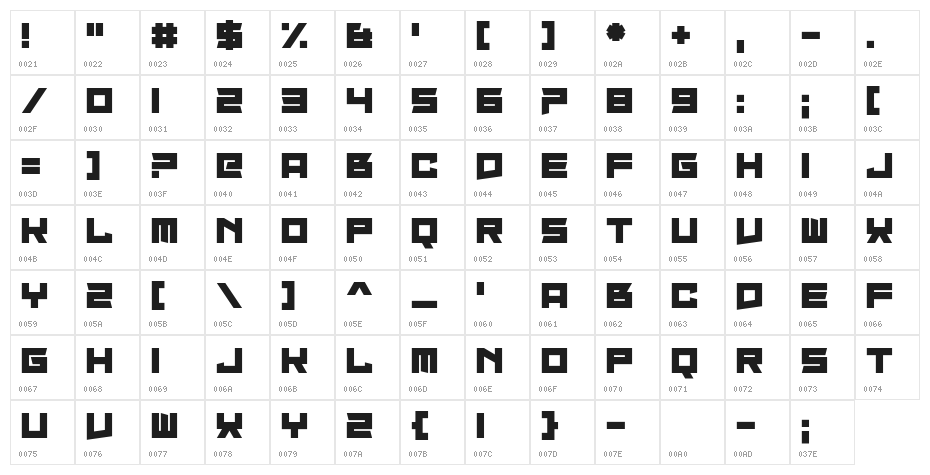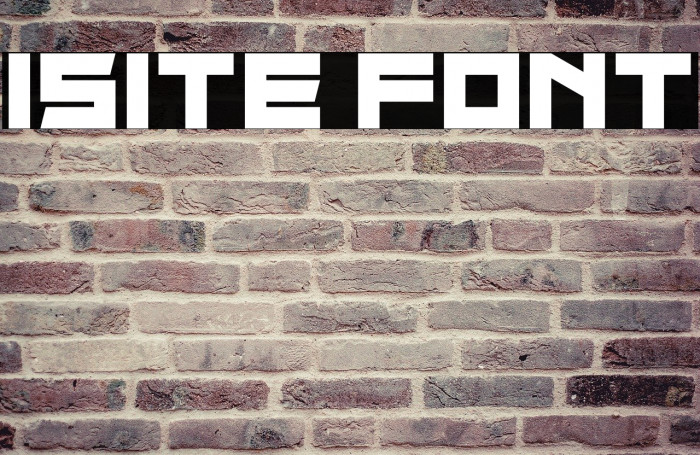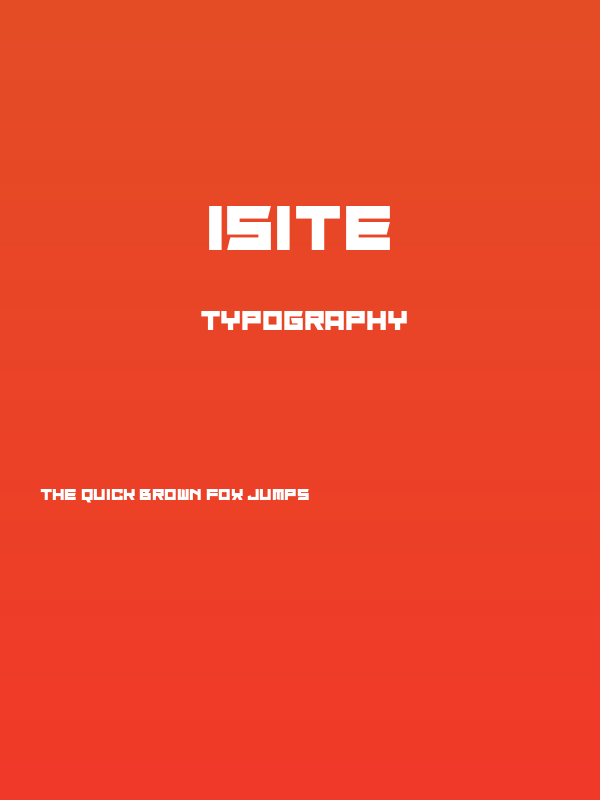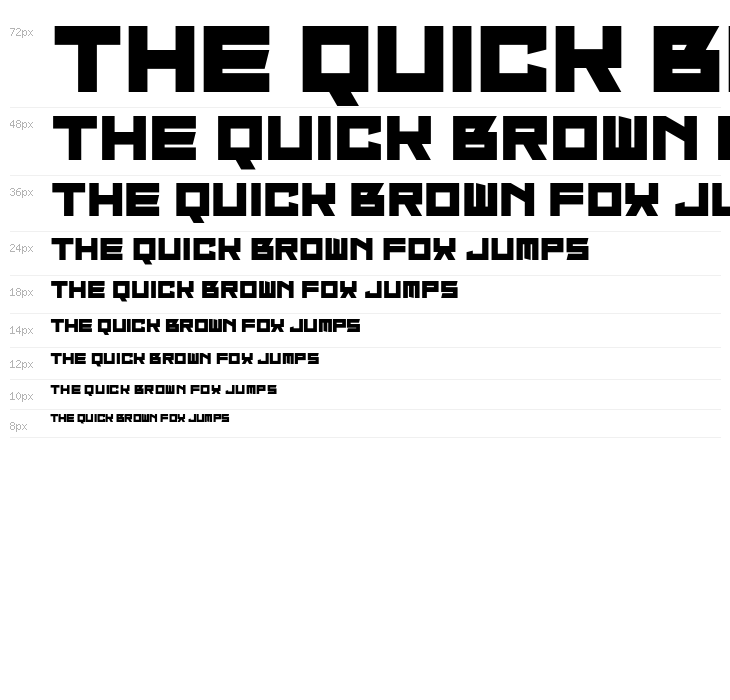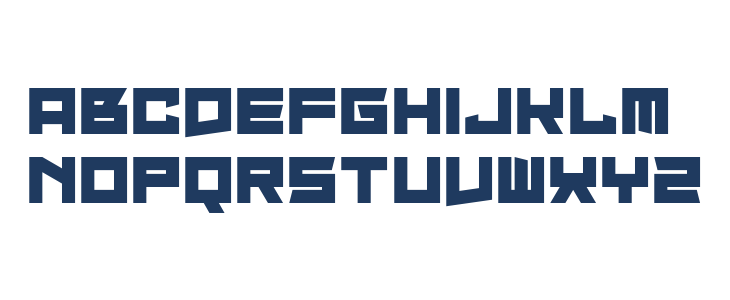
Isite Font
Isite Description
This font features a bold, geometric design with sharp angles and a futuristic aesthetic. The characters are blocky and uniform, creating a strong visual impact. The uppercase and lowercase letters maintain a consistent style, with the uppercase being slightly more pronounced. The numbers and special characters follow the same angular theme, ensuring a cohesive look across all glyphs. This font is ideal for projects that require a modern and edgy appearance, such as tech-related branding or sci-fi themed designs.
| Proposed Projects | Ideal for tech branding, sci-fi themes, video game titles, and modern posters. |